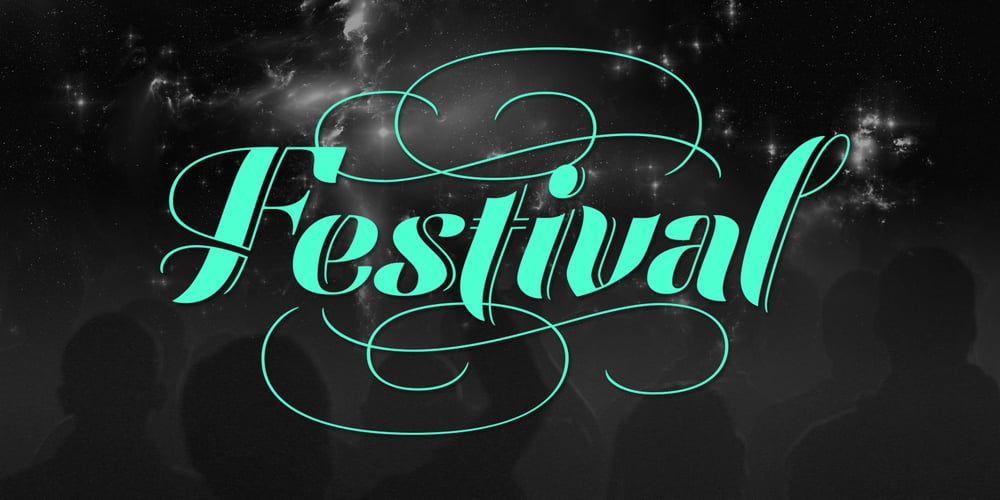
Festival Script Pro Font Family was designed by Alejandro Paul, Angel Koziupa and published by Sudtipos. Festival Script Pro contains 1 styles and family package options. Festival Script is a logical evolution within the deco script territory previously explored by Koziupa and Paul in efforts like Aranjuez, Bellas Artes, Heraldica and Tanguera. In Festival Script, strong bilinear contrast and ornamental swashes combine to convey a sense of modern luxury. This combination echoes the current trend in consumer goods of elevating simple, everyday products to objects of desire. Festival’s basic structure is the familiar Koziupa aesthetic of tapering stems and sharp endings, but this time informed by a more geometric sensibility. A wide variety of thin, ribbonlike strokes add a beautifully ornamental feel, evoking Argentine “filete” motifs. Almost every letterform includes multiple alternates, providing design possibilities from minimal to exuberant. Festival Script Pro is loaded with alternates, swashes, endings and Latin-based language support.